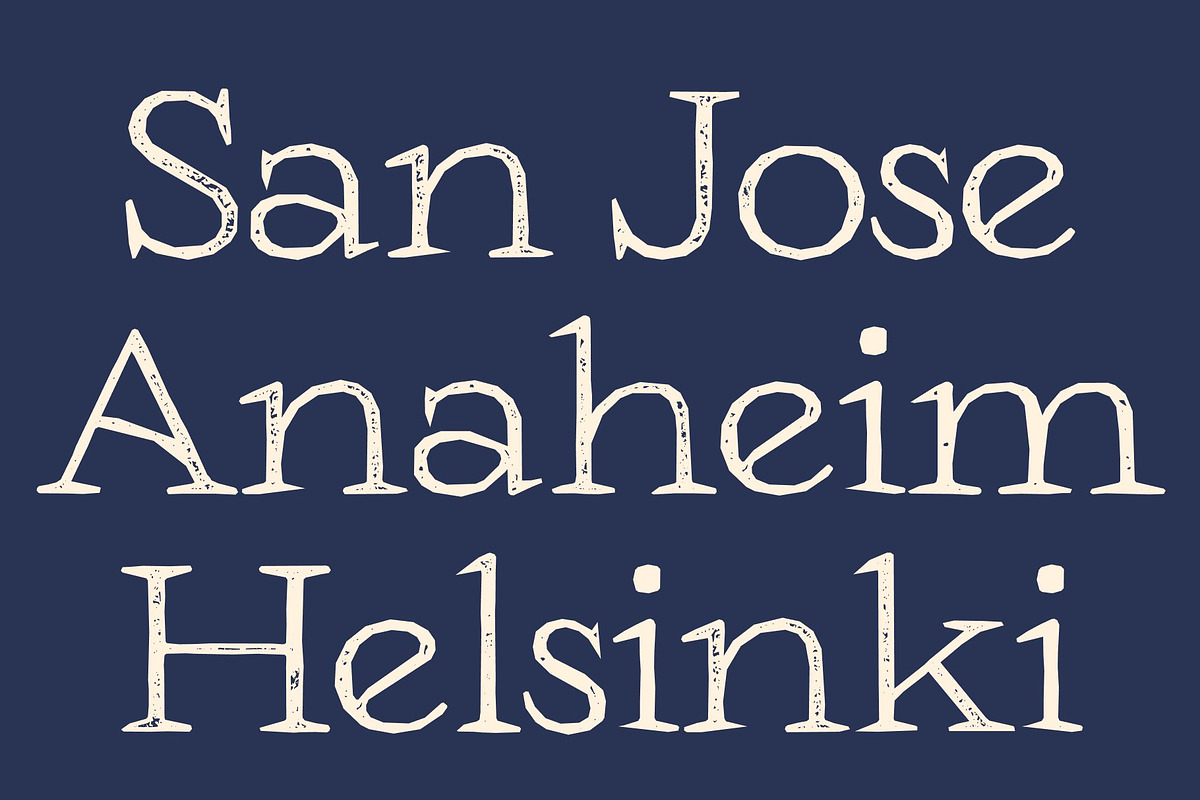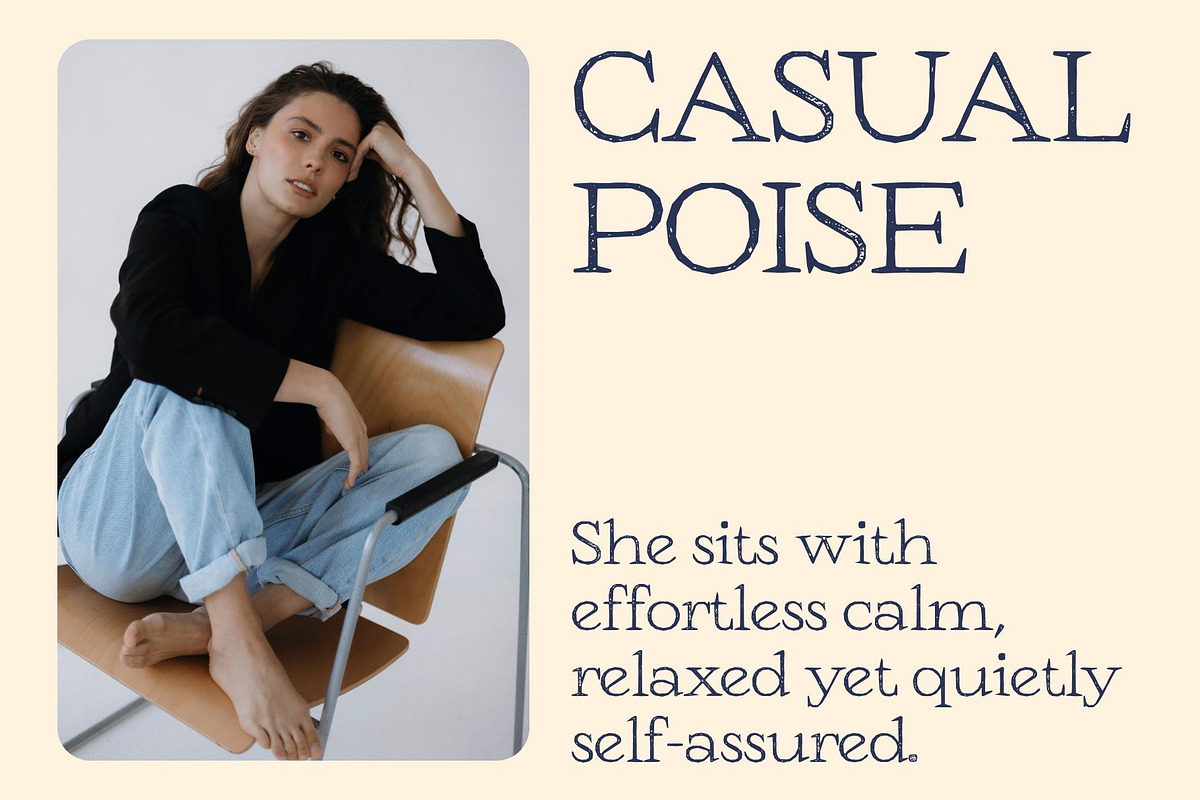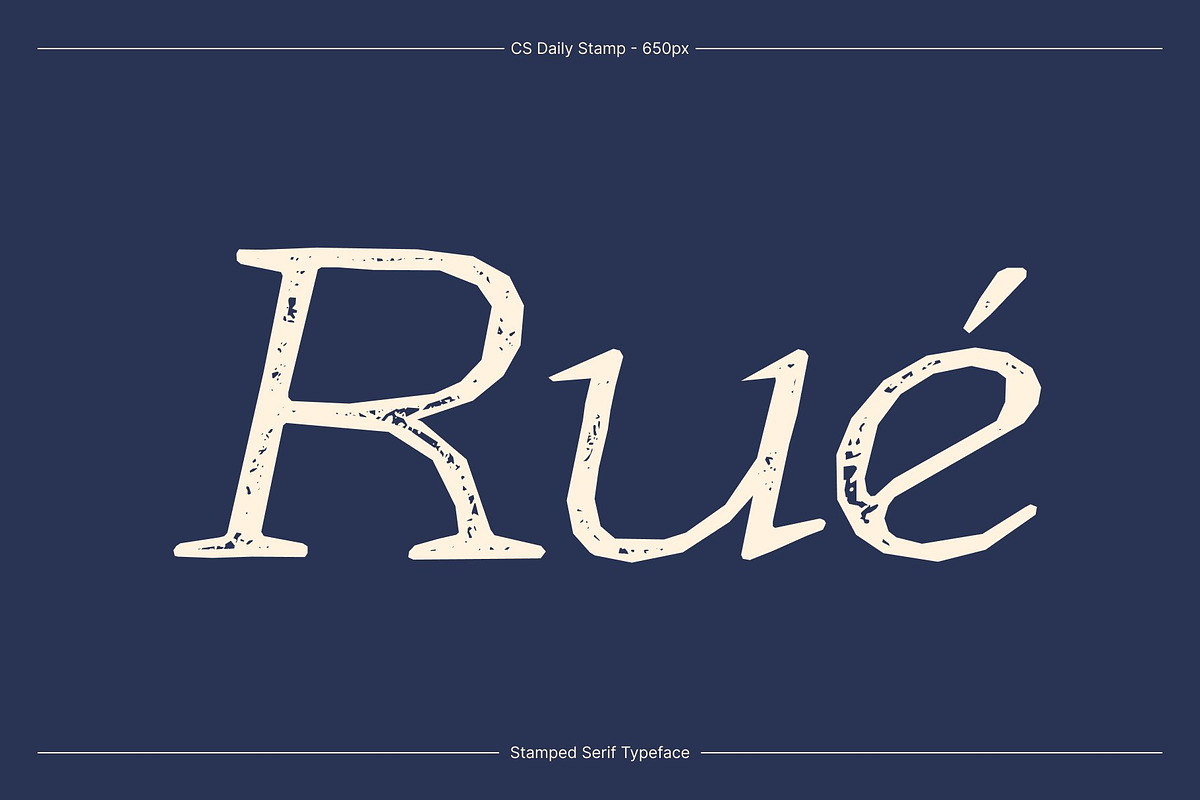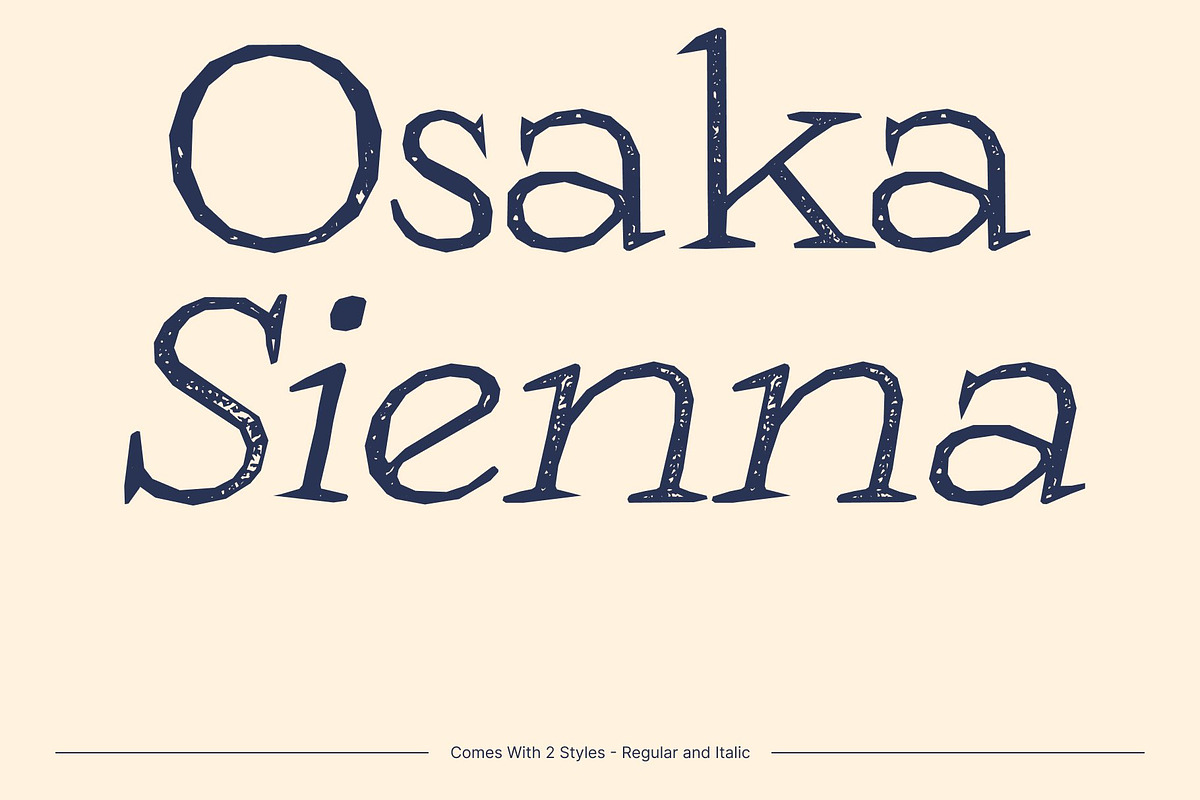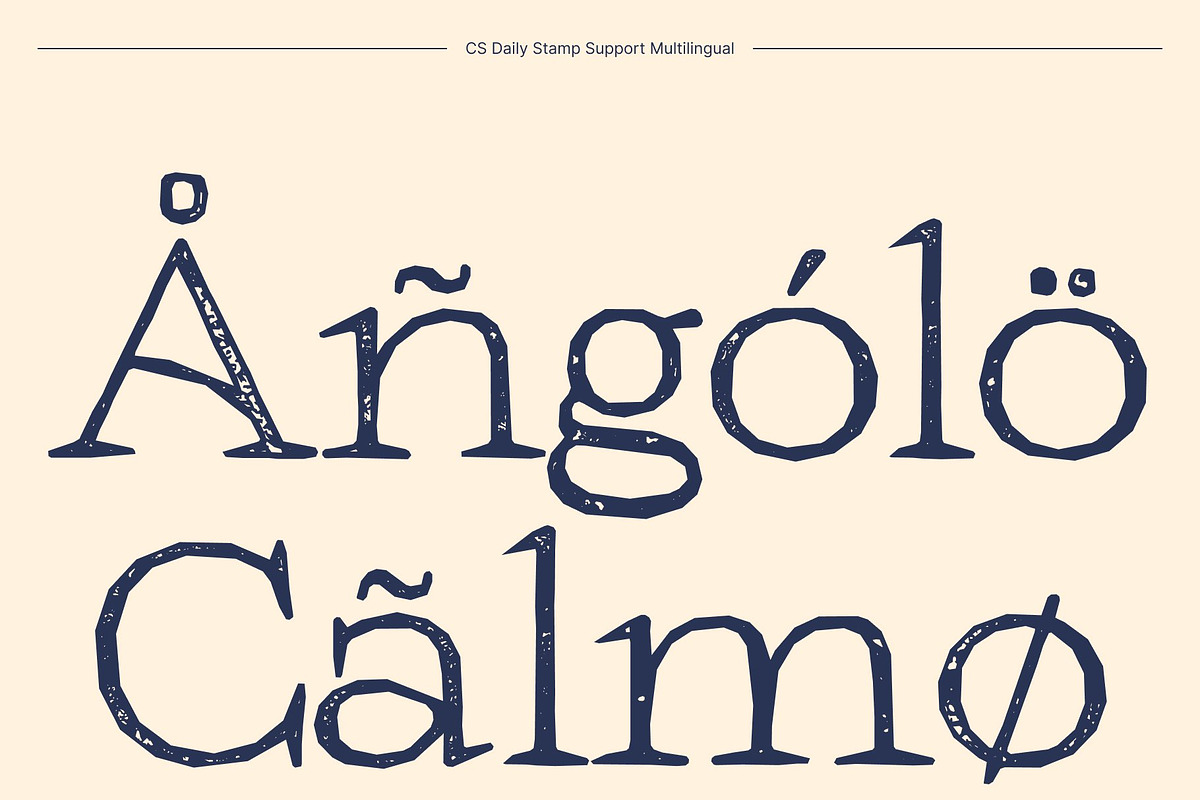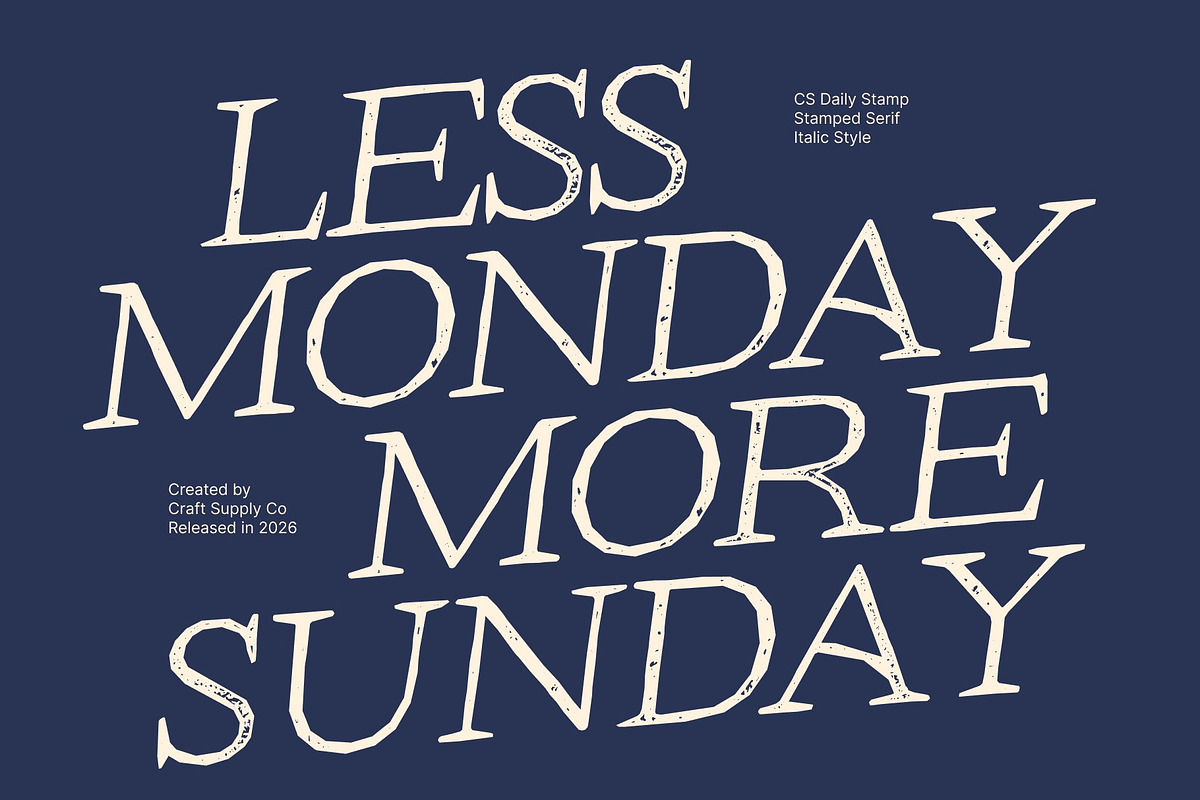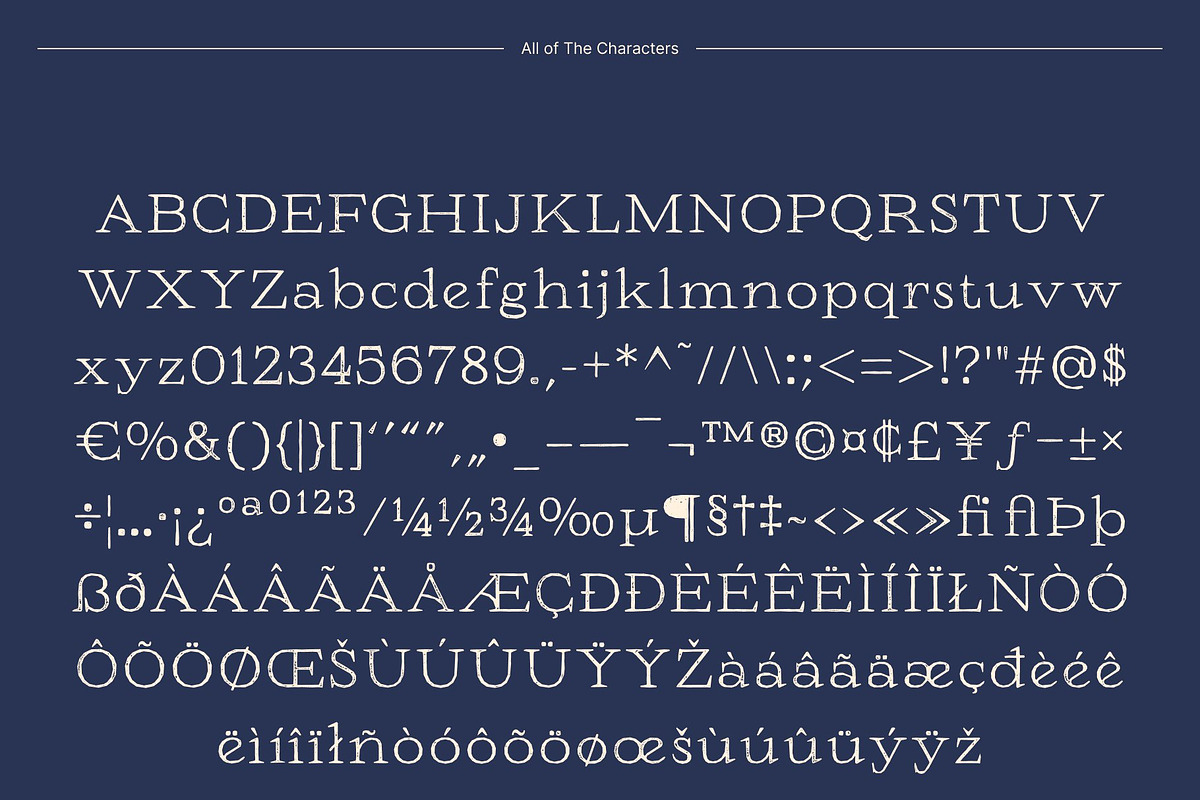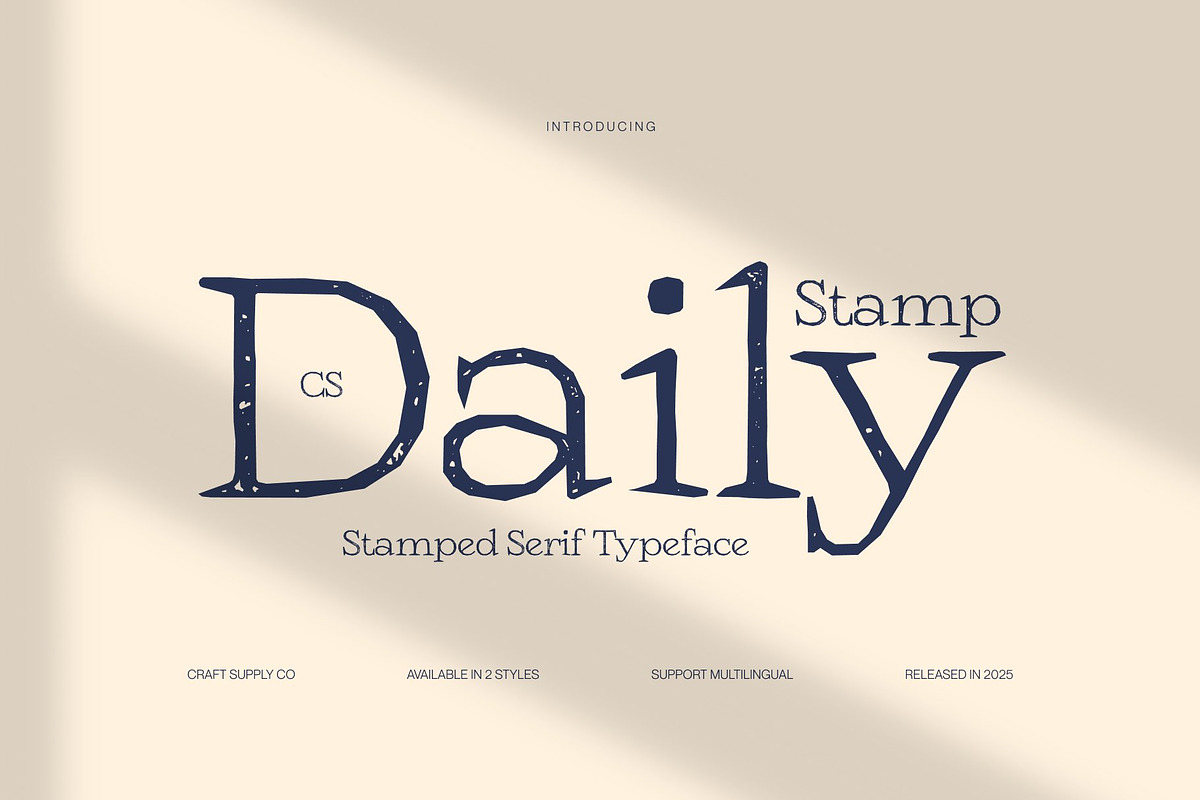
CS Daily Stamp
CS Daily Stamp – Serif Font: Modern Refinement with Elegant Grace
Modern Serif Font with Thin Strokes This is a refined modern serif typeface defined by exceptionally thin strokes and delicate serif details. The addition of the stamp effect introduces a subtle textured finish that softens the precision of the letterforms, giving the font a graceful vintage touch while preserving its contemporary elegance.
Sophisticated and Stylish Design The slender proportions and light structure create a stylish, high-end aesthetic perfect for luxury-focused visuals. The stamped texture adds depth and character, transforming the clean design into something more expressive and tactile without losing its refined sophistication.
Graceful Readability with Artistic Texture Despite its thin strokes, this font maintains excellent readability. The gentle texture enhances visual interest while keeping the letterforms clear and legible, making it ideal for both large headlines and carefully styled body text in premium layouts.
Perfect for High-End and Contemporary Projects From luxury branding and fashion editorials to elegant invitations and upscale packaging, this font delivers modern refinement with a hint of vintage charm. Its blend of delicate structure and subtle texture ensures every design feels polished, stylish, and timeless.
CS Daily Stamp Regular
CS Daily Stamp Italic